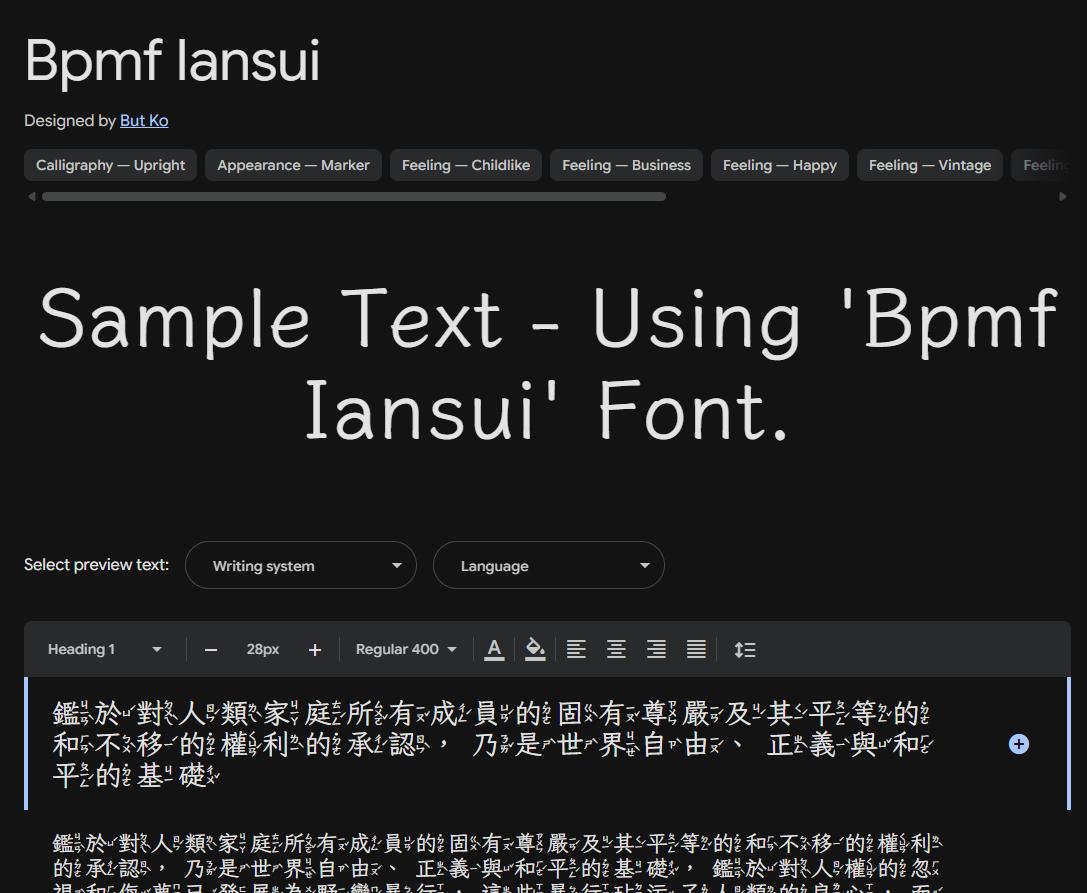
Bpmf Iansui is a specialized single-style typeface meticulously engineered by But Ko, serving as a technical fork of the Klee One aesthetic to streamline the integration of Zhuyin Fuhao within complex CJK layouts. By embedding phonetic sidecars directly into the glyph metrics, the typeface bypasses the limitations of traditional ruby markup engines, ensuring that each Hanzi maintains its elegant stroke modulation and organic pen-style visual balance alongside its corresponding Bopomofo annotations. This unique typographic solution utilizes a disciplined em-box strategy to provide seamless vertical and horizontal legibility, making it an indispensable open-source asset for educational publishing and digital literacy tools within the modern Sinophone design landscape.
The Bpmf Iansui font family, a refined derivative of the Klee One typeface, functions as a high-performance "Hard Pen" script that masterfully synthesizes the discipline of Upright Calligraphy with the fluid, hand-drawn Appearance of a Marker. Characterized by its versatile skeletal structure, the typeface projects a multifaceted emotional resonance that scales from a Childlike, Cute, and Playful innocence to a surprisingly authoritative Business presence, where its Active and Loud visual rhythm ensures high-impact legibility. The typeface's unique modulation and intentional stroke irregularities yield a Rugged texture that evokes a nostalgic Vintage sentiment, yet its overall Happy and approachable kerning makes it an essential tool for semantic optimization in educational and creative contexts. By embedding precise Bopomofo phonetic guides into its humanist proportions, Iansui provides a technically superior solution for regional orthography, balancing the warmth of organic handwriting with the rigorous demands of digital typography.
Leveraging a pen-style skeletal structure derived from the Klee One lineage, Bpmf Iansui is fundamentally unsuitable for high-density technical documentation or high-speed legibility environments, such as aerospace instrumentation and rapid-transit signage. The integrated Bopomofo glyphs, while pedagogically invaluable, introduce significant visual noise and orthographic interference that compromise the optical rhythm required for professional legal contracts or minimalist luxury branding. Since this single-weight typeface lacks the stroke modulation diversity and geometric precision of a comprehensive font family, it fails to provide the typographic hierarchy necessary for complex data visualization or responsive UI/UX frameworks where sub-pixel rendering and high x-height clarity are critical for maintaining semantic accessibility across varying display resolutions.
Bpmf Iansui is specifically engineered to support vertical writing modes, ensuring that the Bopomofo phonetic markings align correctly alongside the main Hanzi characters. The implementation of OpenType "vkrn" and "vpal" features ensures that the vertical baseline remains stable, preventing glyph drift during traditional top-to-bottom typesetting.
This font is an ideal choice for educational materials because its clear integration of phonetic symbols aids young learners in character recognition and pronunciation. Its design utilizes the Klee One skeleton, which provides high stroke contrast and adheres to pedagogical standards for stroke-order visibility in print media.
The font employs a fixed-width em-box system to ensure that integrated phonetic symbols occupy a dedicated spatial zone without overlapping adjacent text. Through advanced kerning tables and glyph substitution, the font maintains a rigid grid alignment that prevents horizontal jitter in dense paragraphs.
While the Hanzi characters remain clear at smaller sizes, the intricate details of the Bopomofo symbols may lose definition if the point size is reduced excessively. Technical analysis shows that the ink-trap inspired terminals of the Iansui base help mitigate dot gain, preserving legibility up to a minimum of 8pt in high-DPI offset printing.
The font pairs effectively with minimalist Latin typefaces due to its clean, handwritten aesthetic that balances organic fluidity with structural precision. Matching the x-height of the Latin companion to the internal Hanzi mean-line creates a cohesive visual weight and consistent gray value across multilingual layouts.
Bpmf Iansui is primarily optimized for Traditional Chinese characters to align with the standard usage of the Bopomofo system in Taiwan. The character set coverage is strictly governed by the Big5 encoding standard, ensuring that all glyph variants comply with the Ministry of Education's orthographic guidelines.
The font is highly effective for niche digital applications, such as e-learning platforms, where phonetic assistance is a core component of the user experience. To maintain clarity on screens, high-resolution rendering through subpixel antialiasing is required to prevent the tiny phonetic glyphs from blurring within constrained viewports.
The phonetic markings are systematically positioned to the right of Hanzi in vertical mode or above them in horizontal mode to follow standard linguistic conventions. By utilizing the OpenType GSUB table, the font dynamically selects pre-composed glyph modules that prevent tonal marks from colliding with the character's ascending strokes.
Bpmf Iansui is generally provided in a single, balanced weight that prioritizes clarity and stroke definition over a wide variety of thicknesses. Designers often manage hierarchy by adjusting tracking or scale, as the fixed stroke-width-to-whitespace ratio is calibrated for optimal grayscale density in body text.
The font's elegant, brush-like quality makes it a sophisticated choice for book headers that require a blend of traditional warmth and academic formality. Its inherent Klee heritage provides a unique structural rhythm that achieves superior readability and noticeability metrics in complex cover typography.